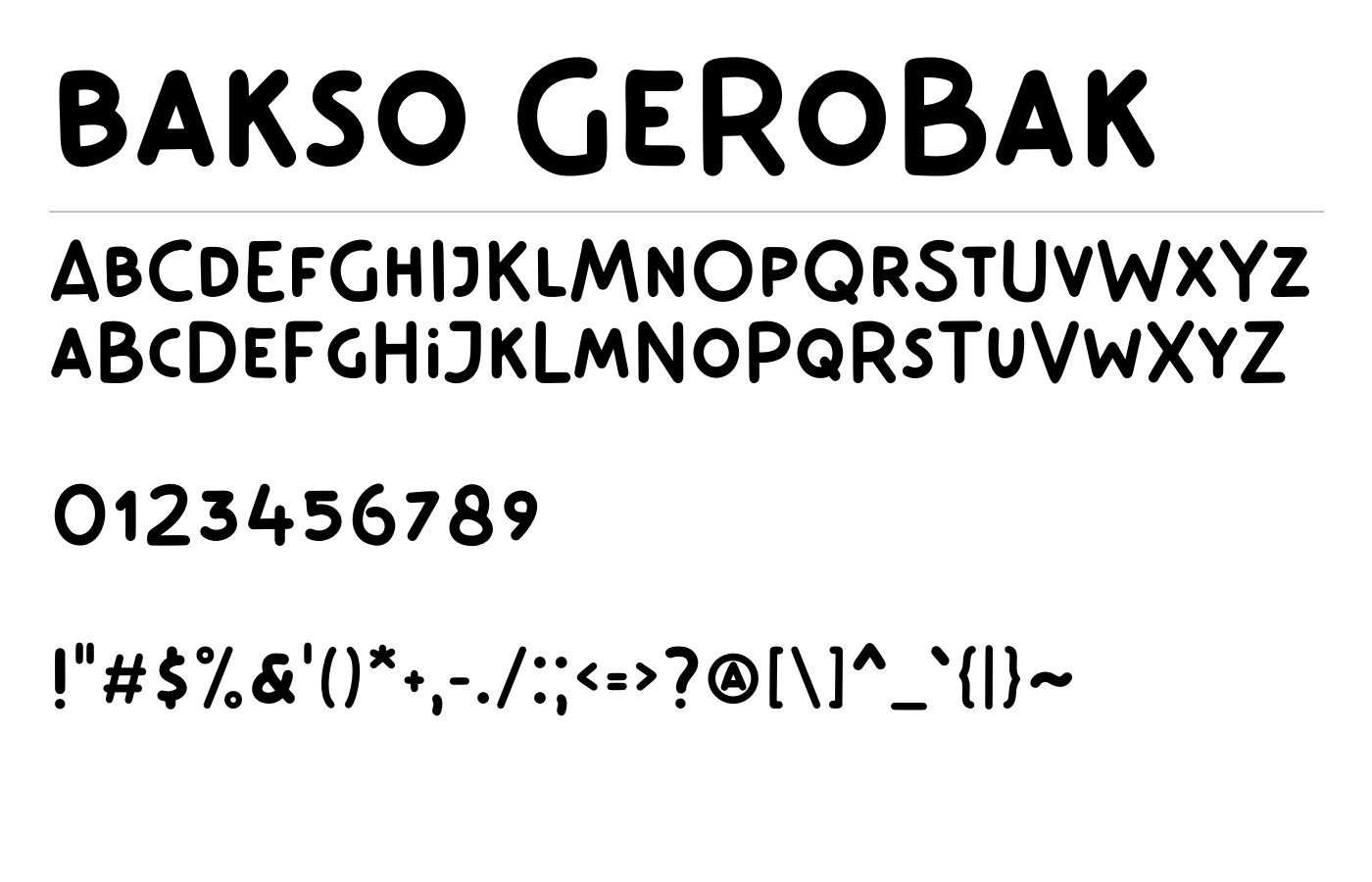
Bakso Gerobak is a casual, playful sans serif font with rounded, friendly letterforms that carry a hand-drawn charm. Its medium weight and slightly condensed width make it versatile for informal branding, children’s materials, and fun headlines, where a warm, approachable feel is desired. This font works well for projects aiming to convey personality and cheerfulness in a simple, readable style.
Bakso Gerobak Font
About Bakso Gerobak Font